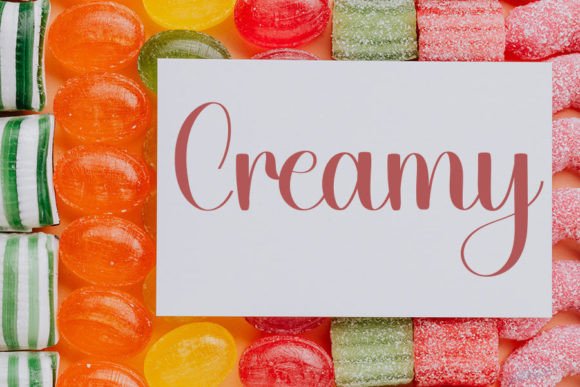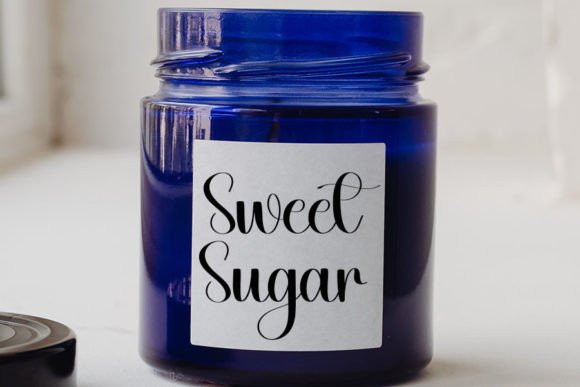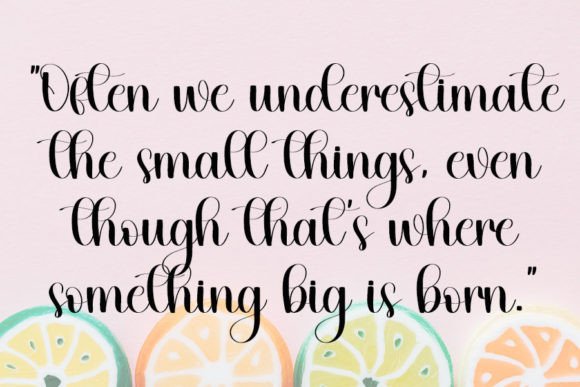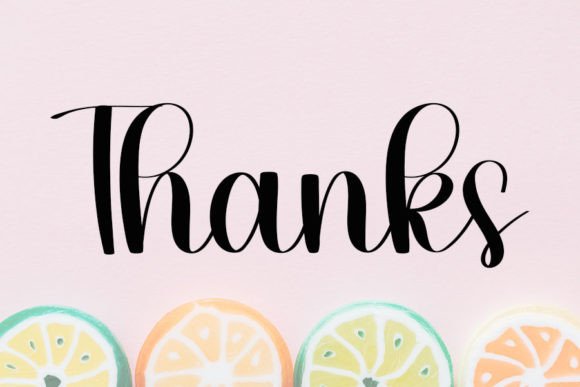
Candy Font: The Sweetest Addition to Your Design Toolbox
Are you tired of using the same old fonts for your designs? Look no further than Candy Font, a simple and friendly handwritten font that’s perfect for a variety of projects. Whether you’re a designer, crafter, or DIY enthusiast, Candy Font is a versatile and charming addition to your toolbox.
What is Candy Font?
Candy Font is a handwritten font that’s designed to be approachable and easy to read. Its sweet and playful style makes it perfect for a wide range of applications, from digital design to crafting and paper crafting. The font’s simplicity and friendliness make it an excellent choice for projects that require a personal touch.
Characteristics of Candy Font
Candy Font has several characteristics that make it a standout choice for designers and crafters:
- Handwritten style: Candy Font has a warm and personal feel that’s reminiscent of handwritten text.
- Simple and easy to read: The font’s simplicity makes it easy to read, even at small sizes.
- Versatile: Candy Font can be used for a wide range of projects, from digital design to crafting and paper crafting.
- Playful and friendly: The font’s playful and friendly style makes it perfect for projects that require a lighthearted touch.
Uses for Candy Font
Candy Font is a versatile font that can be used for a wide range of projects, including:
- Crafts: Use Candy Font to add a personal touch to your craft projects, such as scrapbooking, card making, and DIY gifts.
- Digital design: Candy Font is perfect for digital design projects, such as social media graphics, blog posts, and website headers.
- Presentations: Add a playful touch to your presentations with Candy Font, perfect for educational or business presentations.
- Greeting cards: Use Candy Font to create personalized and charming greeting cards for special occasions.
Why You’ll Love Candy Font
Candy Font has the potential to become your go-to font for a variety of reasons:
- High-quality design: The font is designed with high-quality and clear lines, making it perfect for printing and digital use.
- Unique style: Candy Font has a unique and playful style that will set your projects apart from others.
Tips for Using Candy Font
Here are a few tips for getting the most out of Candy Font:
- Experiment with sizes: Candy Font looks great at a variety of sizes, so don’t be afraid to experiment with different sizes to find the one that works best for your project.
- Pair with other fonts: Candy Font pairs well with other fonts, so try pairing it with a bold font for headings or a script font for added elegance.
- Use for headlines and body text: Candy Font is versatile enough to be used for both headlines and body text, making it a great choice for a wide range of projects.
| Font Name | Candy Font |
| Author | Ganden Letter |
Candy Font is a simple and friendly handwritten font that’s perfect for a wide range of projects. Its playful and approachable style makes it a great choice for designers, crafters, and DIY enthusiasts. With its ease of use, high-quality design, and unique style, Candy Font has the potential to become your go-to font for all your design needs.